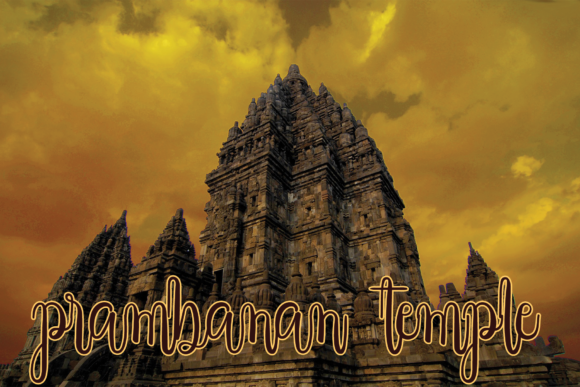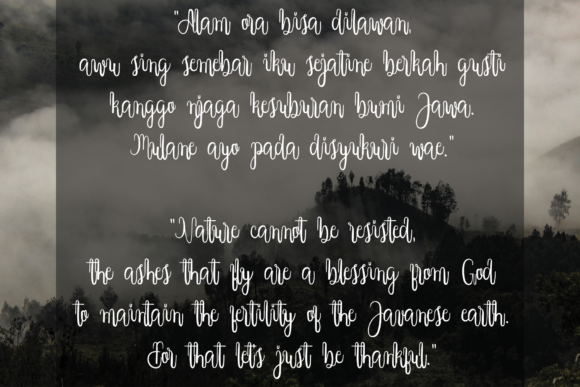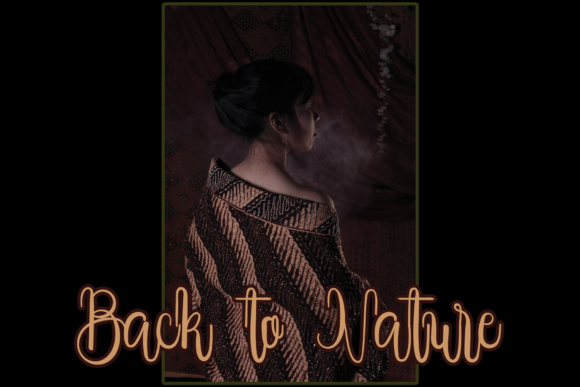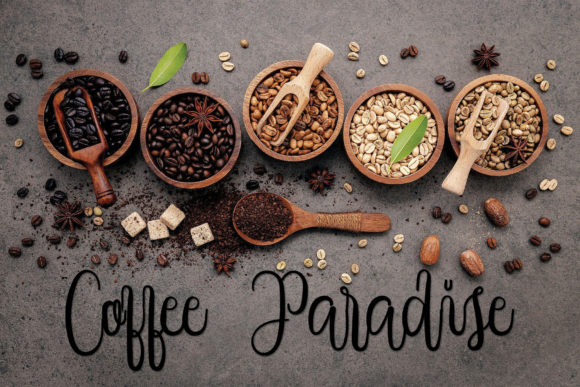
Unleashing the Whimsy: Introduction to Java Signature Font
Have you ever found yourself in the midst of a creative project, desperately searching for the perfect font to bring your vision to life? That’s where the Java Signature Font comes in – a high-quality, elegant script font that’s sure to elevate your designs and leave a lasting impression. With its relaxed theme and lovely style, this font is an absolute must-have for any designer looking to add a touch of sophistication to their work.
Whether you’re working on a design project with a transparent background or a creative endeavor that requires a free download, the Java Signature Font is an invaluable resource that’s sure to inspire. Its versatility and ease of use make it a valuable addition to any designer’s library, and its free availability means you can start using it right away. So why settle for an ordinary font when you can have a Java Signature Font that’s truly extraordinary?
Key Features of Java Signature Font
- High-quality font design ideal for creative projects and personal signatures
- Transparent background, allowing for easy layering and customization in design software
- Comes in a single size, making it easy to scale and adjust to various design needs
- Resolution-independent design, ensuring crisp and clear display on high-resolution screens and prints
- Unique and modern design aesthetic, perfect for adding a touch of personality to digital and print materials
Honest Review: Java Signature Font
As a designer, I’m always on the lookout for high-quality fonts that can elevate my creative projects. The Java Signature Font is one such font that caught my attention. With a transparent background and sleek design, it’s perfect for adding a touch of sophistication to any design.
- High-quality design that’s perfect for professional projects ✨
- Transparent background makes it easy to customize and use in different design scenarios ✨
- Limited character set, which may not be suitable for longer texts or paragraphs ⚠️
- No bold or italic variations, which may limit its use in certain design contexts ⚠️
Overall, I’m impressed with the Java Signature Font. While it may have some limitations, its sleek design and high-quality feel make it a great addition to any designer’s toolkit. If you’re looking for a font that exudes professionalism and sophistication, I’d definitely recommend giving it a try.
Java Signature Font
The Java Signature Font is a high-quality design resource that offers a unique and creative touch to your projects. This font features a transparent background, making it perfect for overlaying on images or backgrounds.
To get the most out of the Java Signature Font, experiment with different font sizes, colors, and combinations to create unique and eye-catching designs.
Use the font to create a consistent brand identity or to add a personal touch to your projects.
The Java Signature Font is perfect for:
Creating social media graphics and posts
Designing business cards and resumes
Adding a personal touch to presentations and reports
Q: Is the Java Signature Font suitable for large-scale designs or print materials?
Yes, the Java Signature Font is designed to be scalable and suitable for large-scale designs or print materials. Its high-quality design ensures that it remains crisp and clear even at larger sizes, making it an excellent choice for posters, billboards, or any other print materials that require a high level of visual impact.